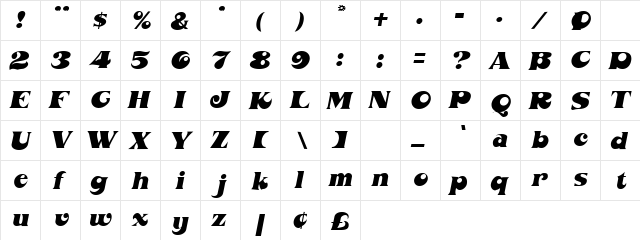
Phalanx Oblique
Design Context for Phalanx Typeface
Phalanx is a composed and adaptable typeface that performs quietly and consistently across a wide range of design contexts. Its italic angle brings a sense of urgency and motion to the letterforms.
Pro Tip: Use Phalanx for emphasis, pull quotes, and subheadings where its slanted energy can add rhythm to the layout.